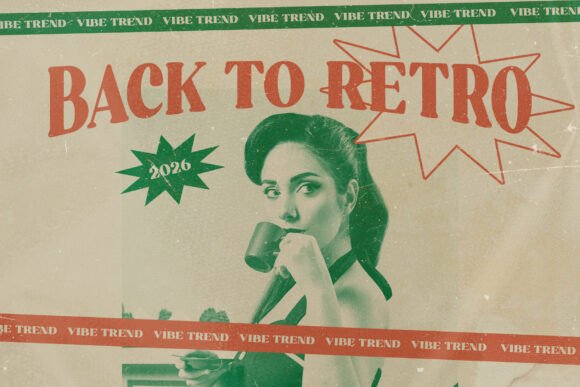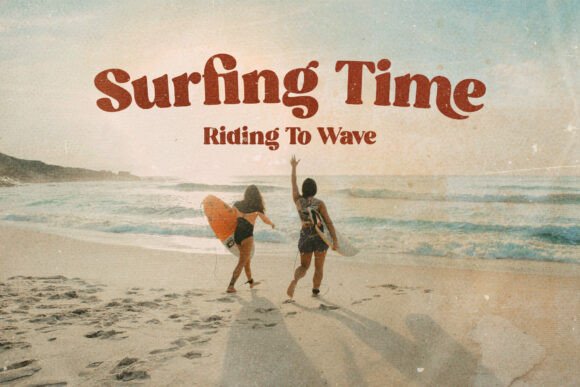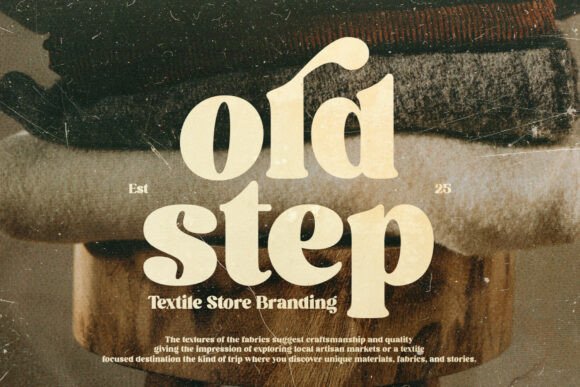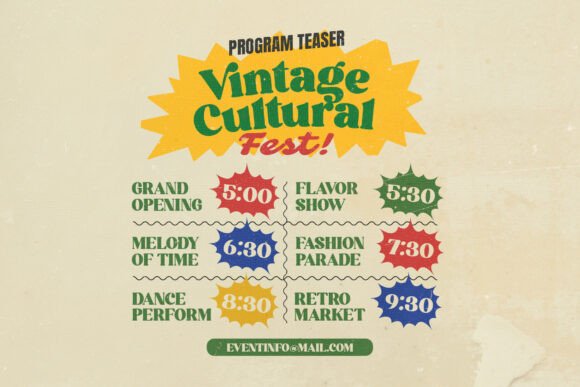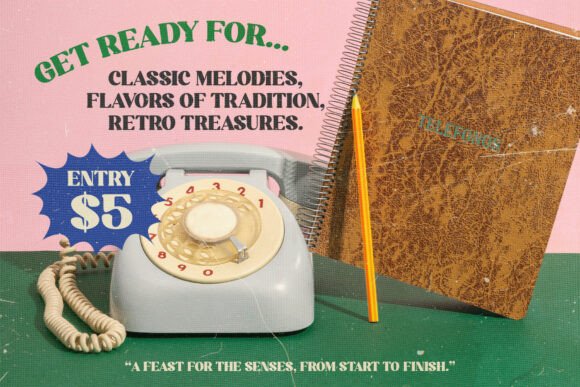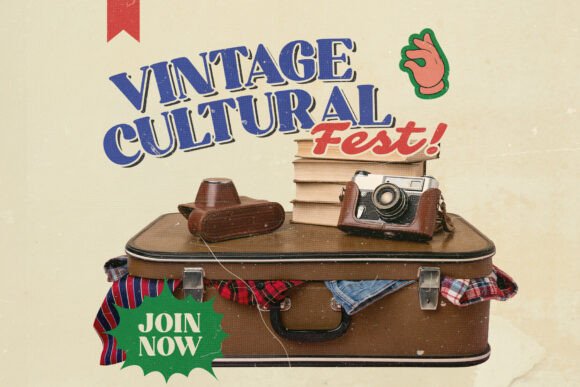
Introduction to Kindfield Font
Have you ever stumbled upon an old vintage poster and felt an instant rush of nostalgia? The classic typography, the elegant curves, and the bold serifs all combine to create a timeless design that transcends eras. This is the magic of the Kindfield Font, a retro serif font that captures the essence of mid-century design and vintage advertising aesthetics. With its soft curves, bold serifs, and charming letterforms, Kindfield delivers a warm, nostalgic feel with a modern touch.
As a designer, you’re always on the lookout for the perfect font to elevate your creative project. Whether you’re working on a branding project, creating packaging for a new product, or designing a poster for a local event, the right font can make all the difference. Kindfield Font is a high-quality design resource that’s perfect for designers who want to add a touch of vintage charm to their work.
Key Features of Kindfield Font
- High-quality design resource ideal for creative projects, offering a unique and elegant style.
- Designed with precision and attention to detail, ensuring high-resolution output suitable for print and digital applications.
- Perfect for designers looking for a sophisticated and modern font to elevate their creative project.
Honest Review: Kindfield Font
As a designer, I’ve had the chance to work with a wide range of fonts for various creative projects. The Kindfield Font is one of the more recent additions to my design resource library, and I’m excited to share my honest thoughts on it.
One limitation I’ve noticed is that the font might not be as versatile as some other options. It’s mainly suited for body text and headings, and might not be the best choice for titles or logos.
Overall, I’m really happy with the Kindfield Font. It’s a great addition to my design library, and I’ve already used it for a few projects. If you’re looking for a high-quality, free font for your creative project, I’d definitely recommend giving it a try.
Using Kindfield Font in Creative Projects
Kindfield Font is perfect for creative projects that require a unique and elegant touch. It’s a great choice for designing business cards, brochures, and other marketing materials. The font’s high quality and transparent background make it ideal for use on a variety of backgrounds.
Tips for Getting the Most Out of Kindfield Font
To get the most out of the Kindfield Font, try experimenting with different font sizes, colors, and combinations. You can also use the font in conjunction with other design elements to create a unique and eye-catching design.
The Kindfield Font is perfect for a variety of use cases, including:
Alternatives to Kindfield Font
Alex Brush is a beautiful, elegant font designed for use in creative projects that require a high level of sophistication. It’s perfect for designing invitations, business cards, and other visual materials that need a touch of luxury. Alex Brush is a high-quality font that’s available for free download, making it an excellent alternative to Kindfield Font.
Can I use the Kindfield Font for print materials?
Yes, the Kindfield Font is optimized for various print materials, including business cards, brochures, and posters. It’s available in high-resolution formats, ensuring crisp and clear typography in your print designs.